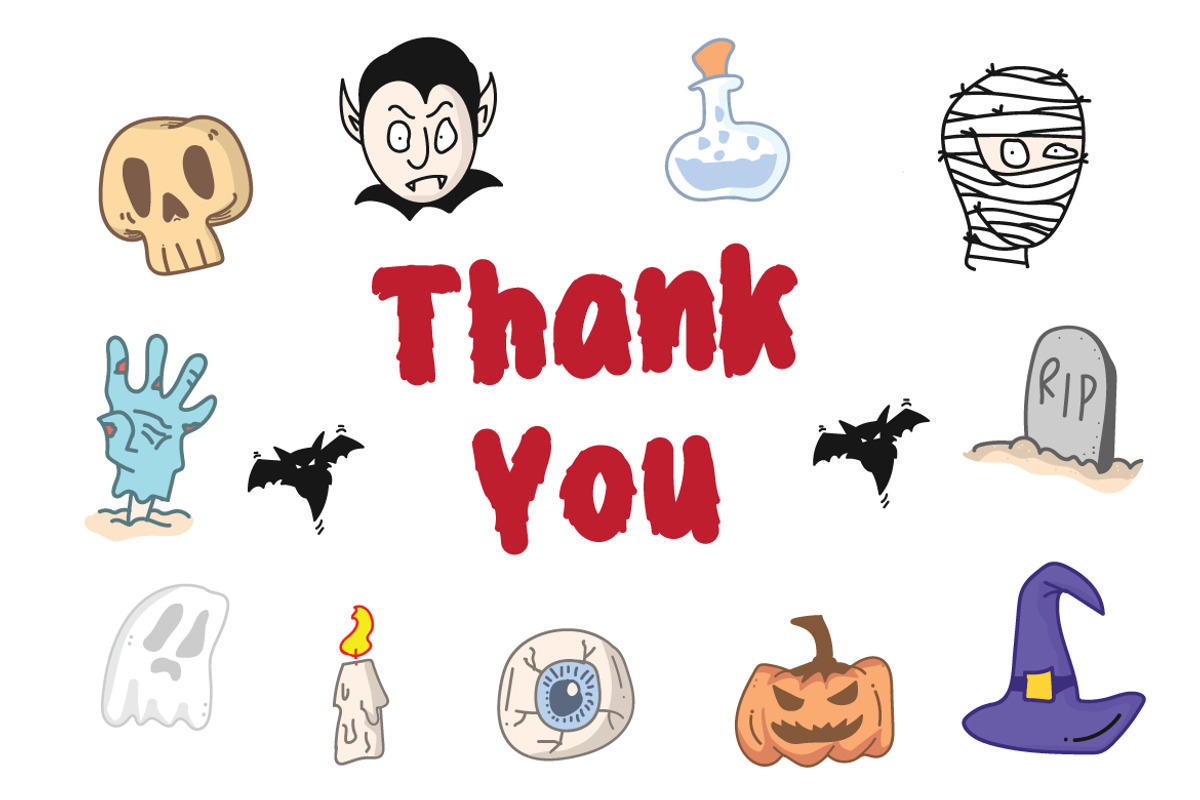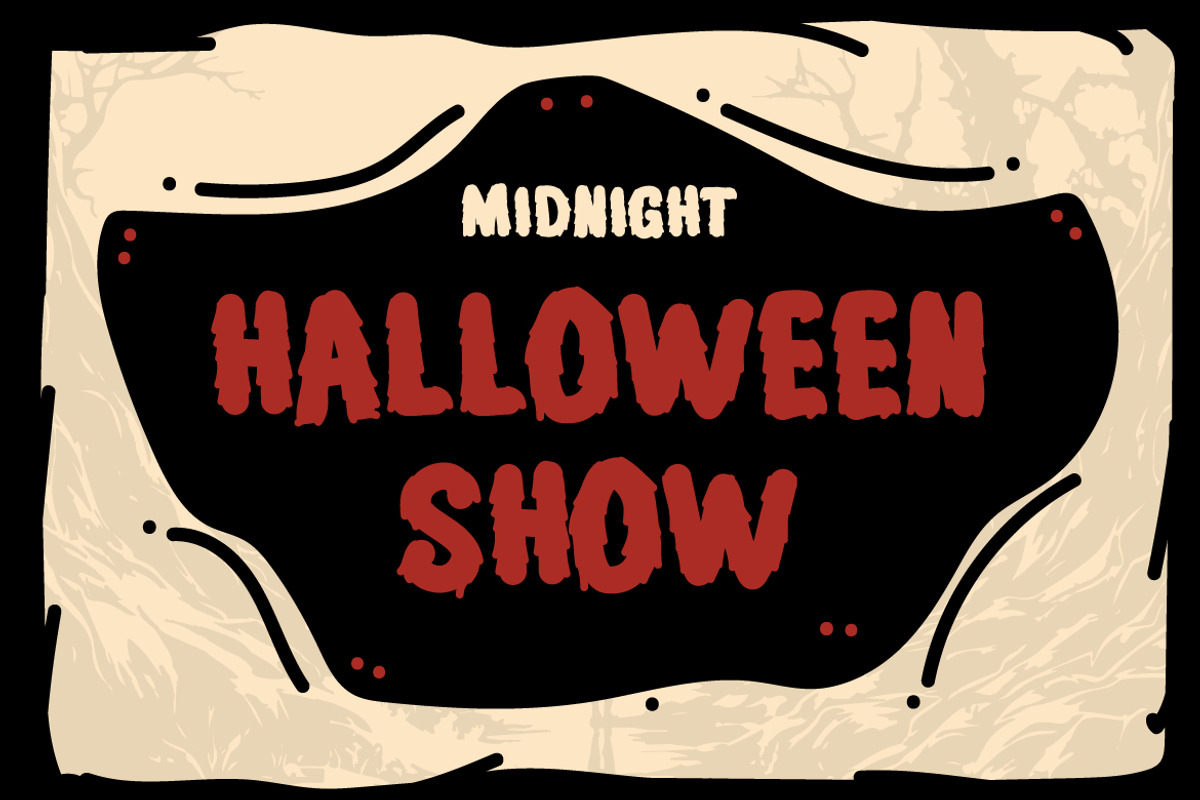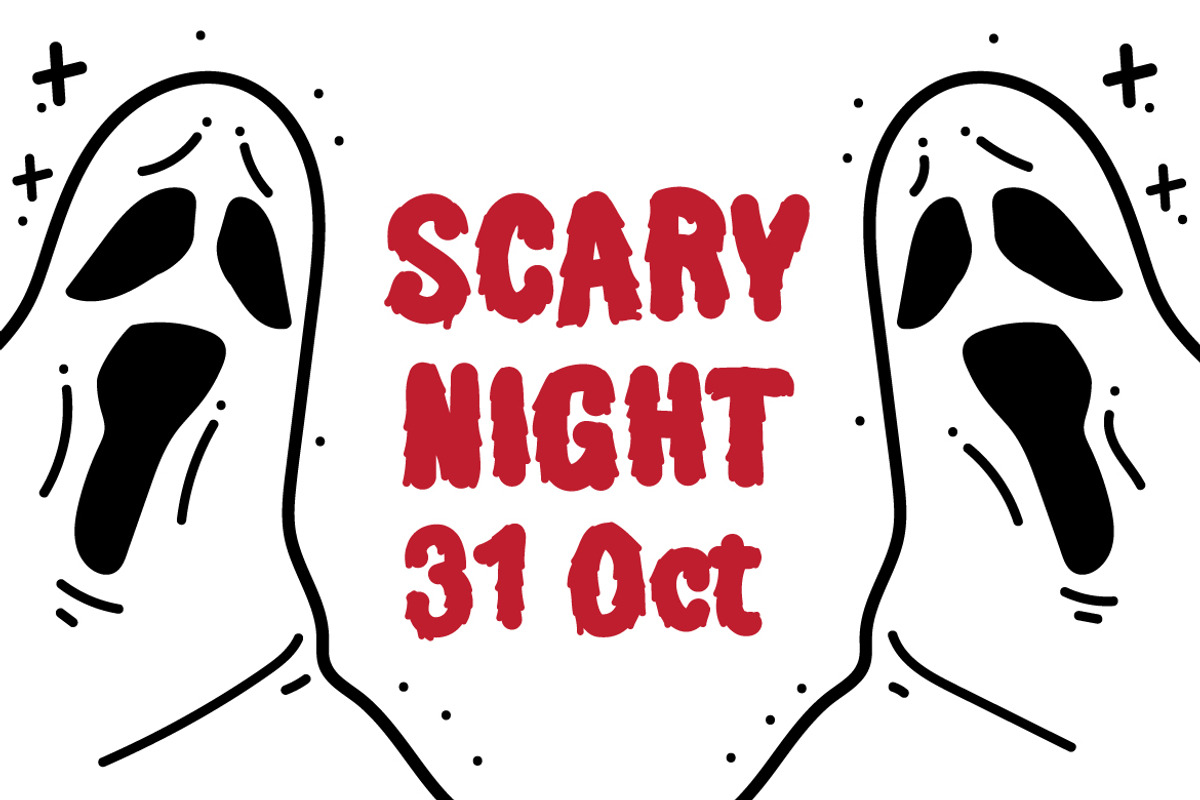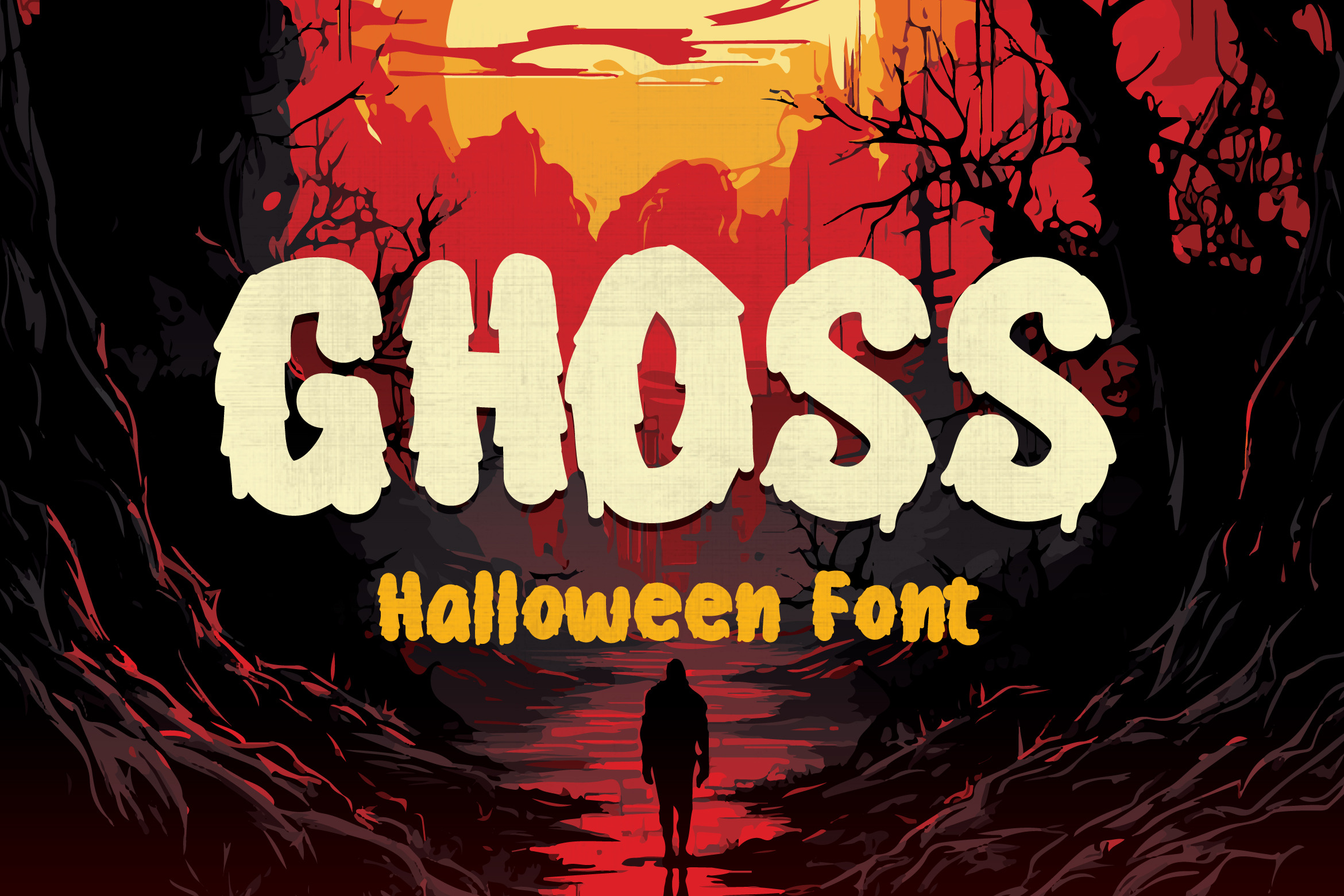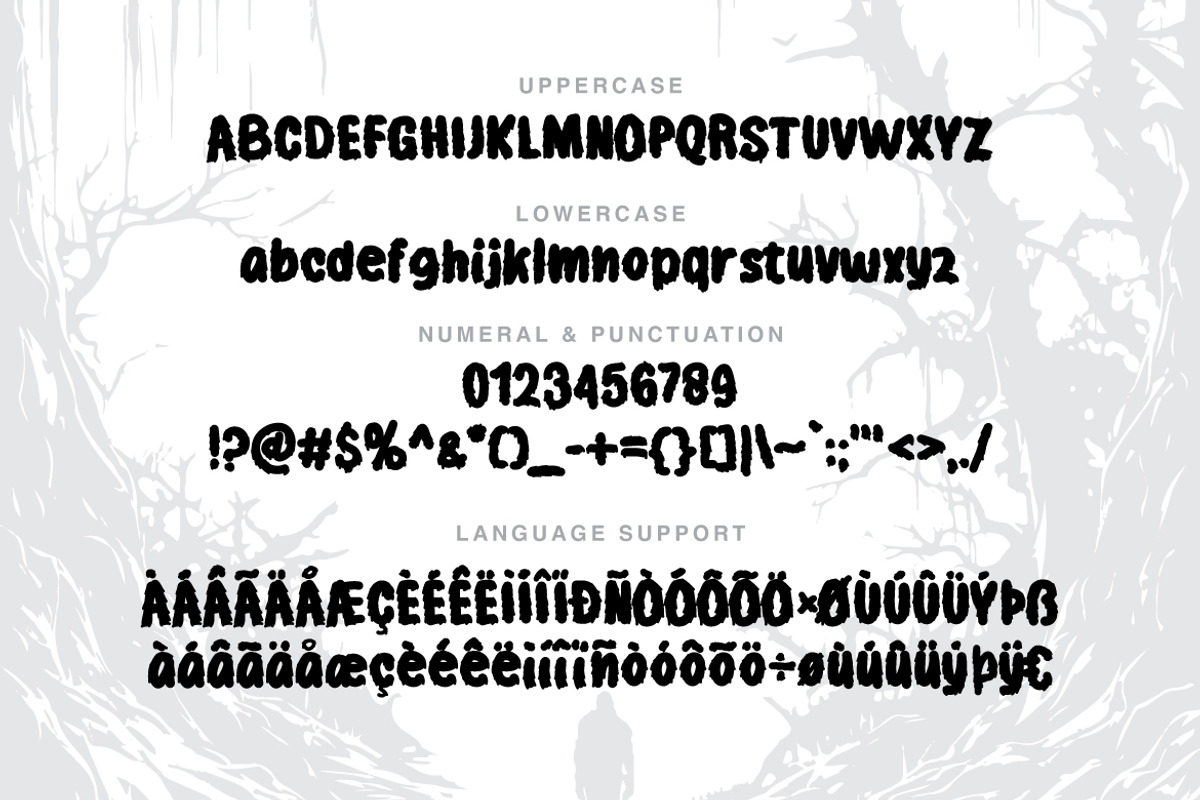
Ghoss - Halloween Font
Elevate your Halloween designs to hauntingly stylish heights with Ghoss - Halloween Font. This font file product is your key to adding a touch of eerie elegance to all your spooky projects.
Ghoss boasts a unique blend of gothic aesthetics and playful charm, making it the perfect choice for Halloween invitations, posters, and any design that needs a dash of the macabre.
With its carefully crafted letters and eerie embellishments, Ghoss Font captures the essence of the season and lets you create text that sends shivers down spines.
Ghoss - Halloween Font is a must-have for designers, Halloween enthusiasts, and anyone looking to make a ghoulish statement with their typography.
Whether you're crafting a bewitching party flyer or brewing up a creepy social media post, this font product offers endless creative possibilities.
Give your designs a ghostly edge, and let Ghoss Font help you transform ordinary words into spine-tingling works of art.